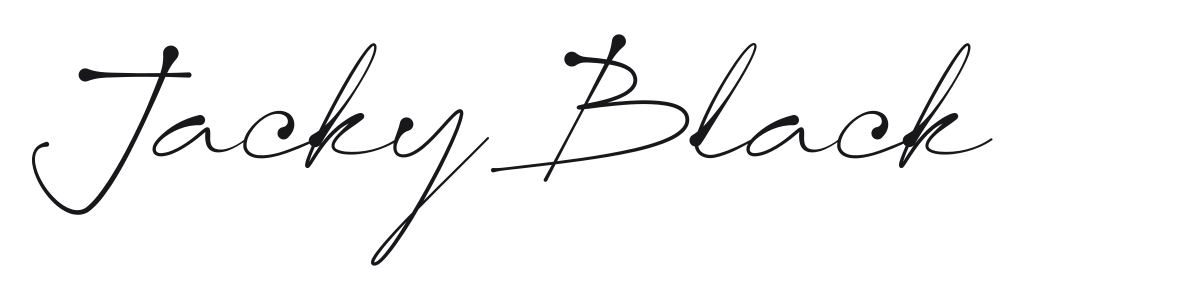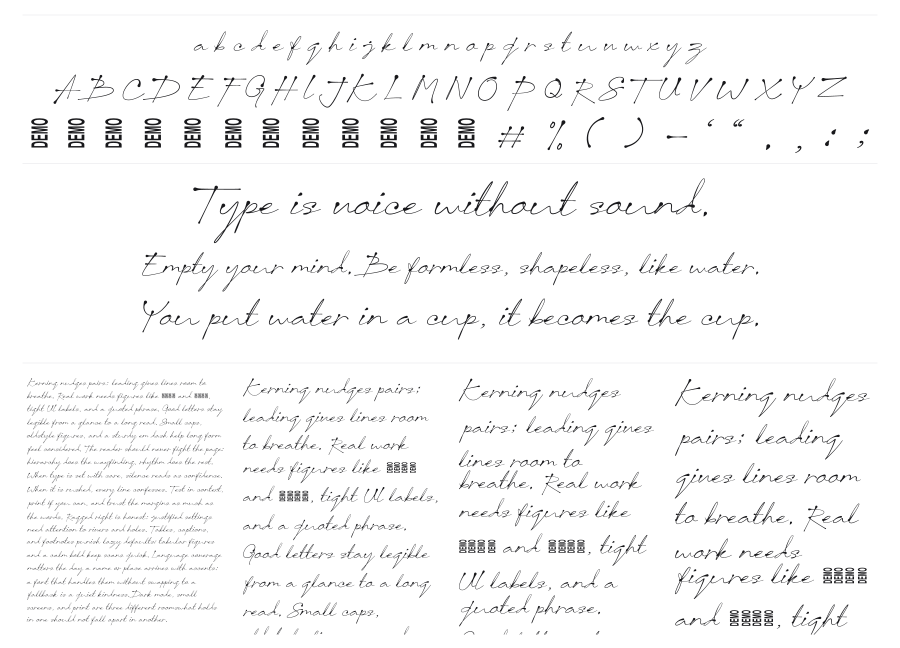
Jacky Black
Jacky Black is a fluid ink-style handwriting script with long sweeping strokes and a naturalistic, pen-on-paper quality. The thin, near-monoweight lines flow freely across the baseline, giving it a signature-like energy that feels personal rather than polished. It reads best at large sizes where the looping connections and ink trails can breathe.